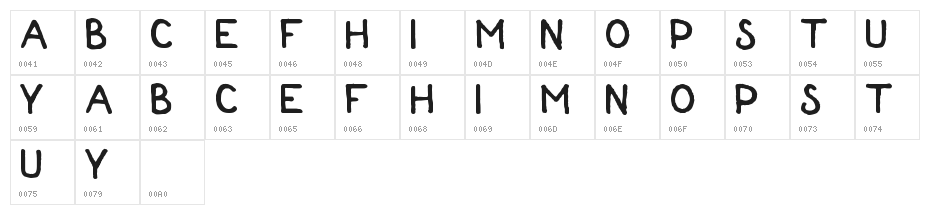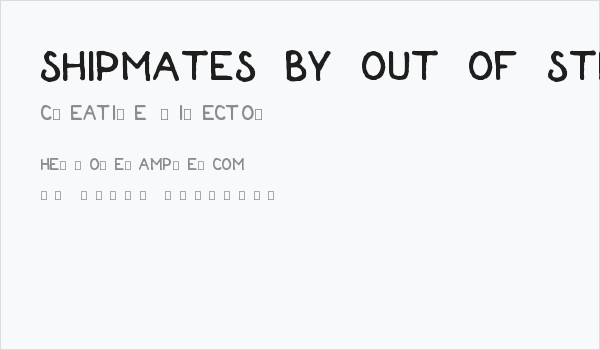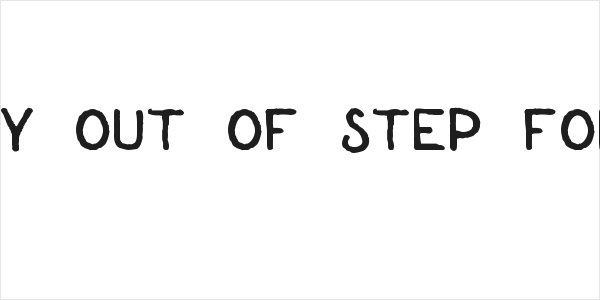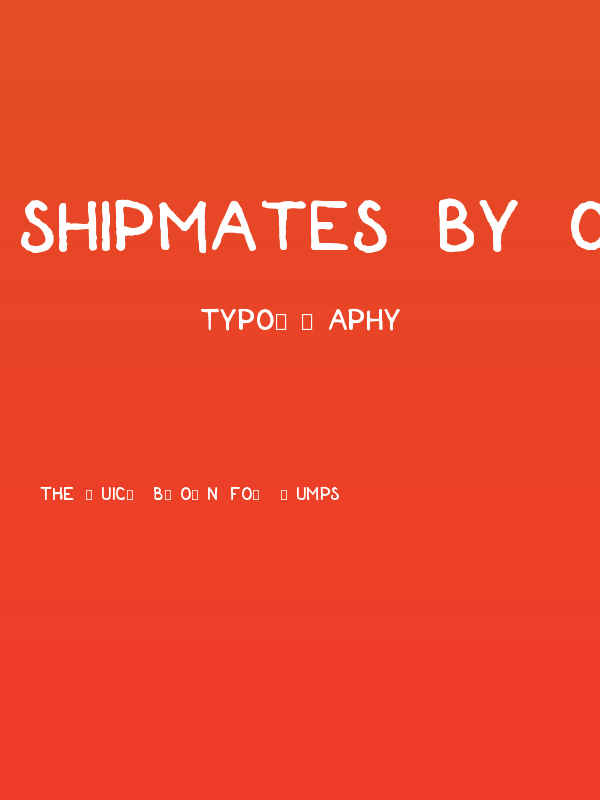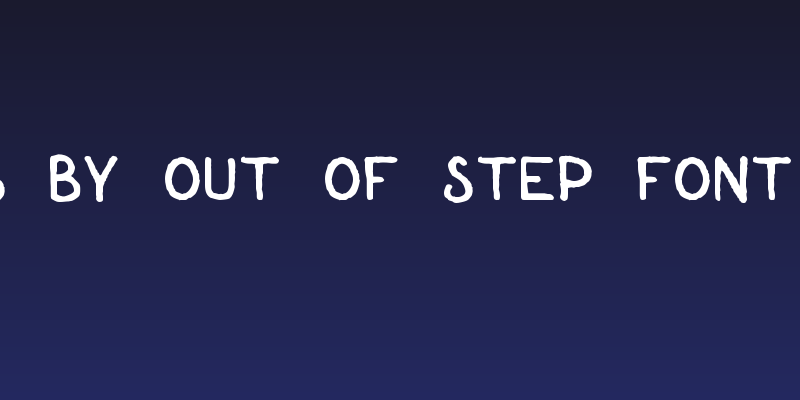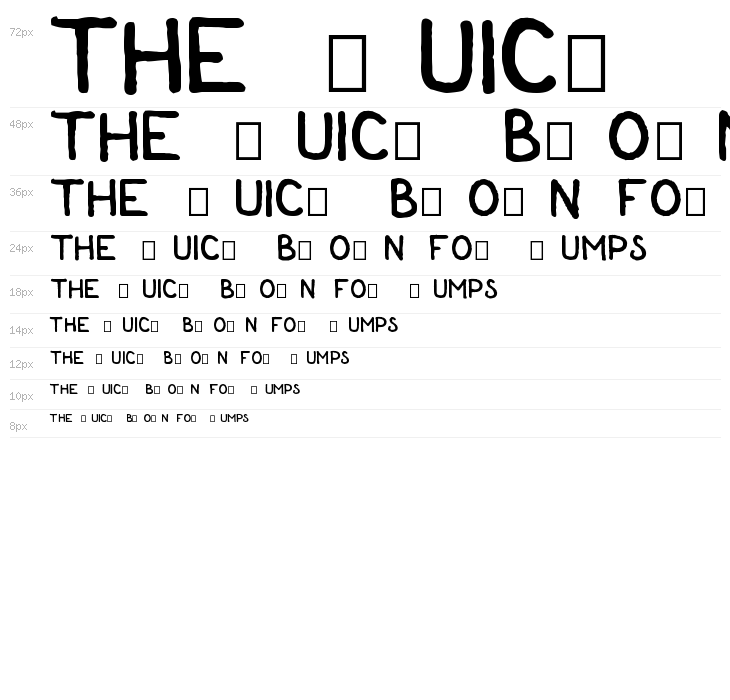
Shipmates by Out Of Step Font Company Font
Shipmates by Out Of Step Font Company Description
This font features a playful and casual handwritten style, characterized by its uneven strokes and slightly irregular letterforms. The letters have a bold appearance with a somewhat rough texture, giving them a hand-drawn look. The overall impression is informal and friendly, making it suitable for creative and fun projects. The uppercase and lowercase letters maintain a consistent style, while the numbers and special characters complement the alphabet with the same whimsical touch. The font's design is approachable and versatile, ideal for adding a personal touch to various design elements.
| Proposed Projects | Ideal for greeting cards, children's books, playful branding, and informal invitations. |